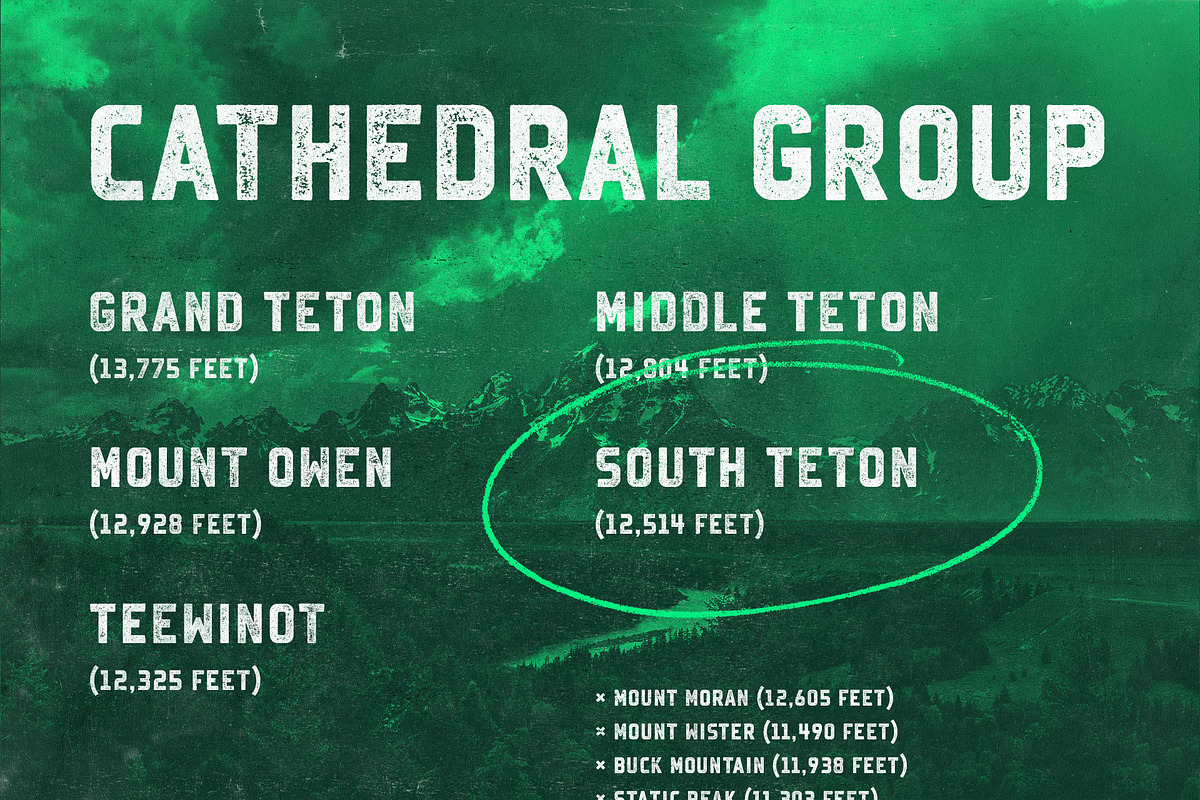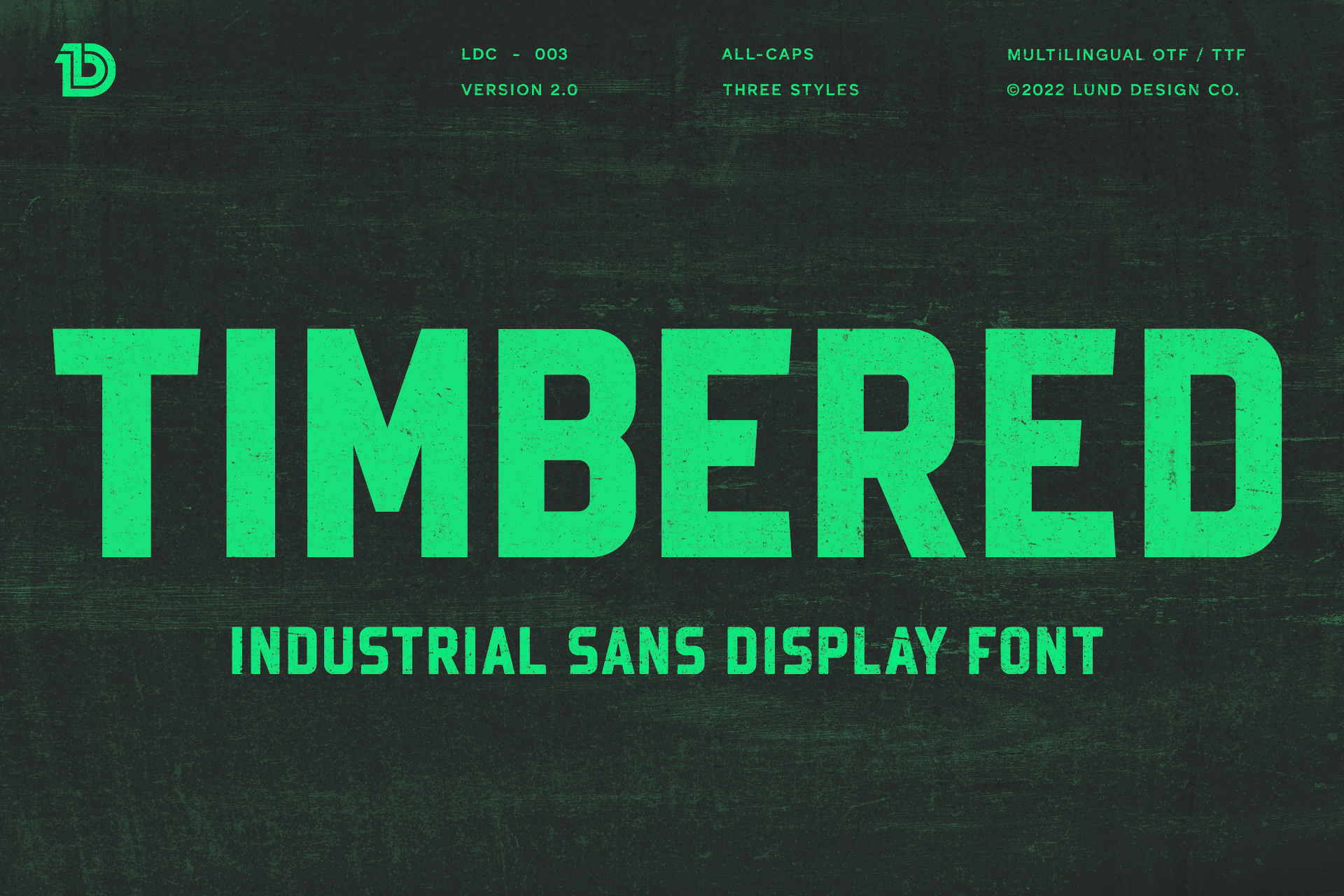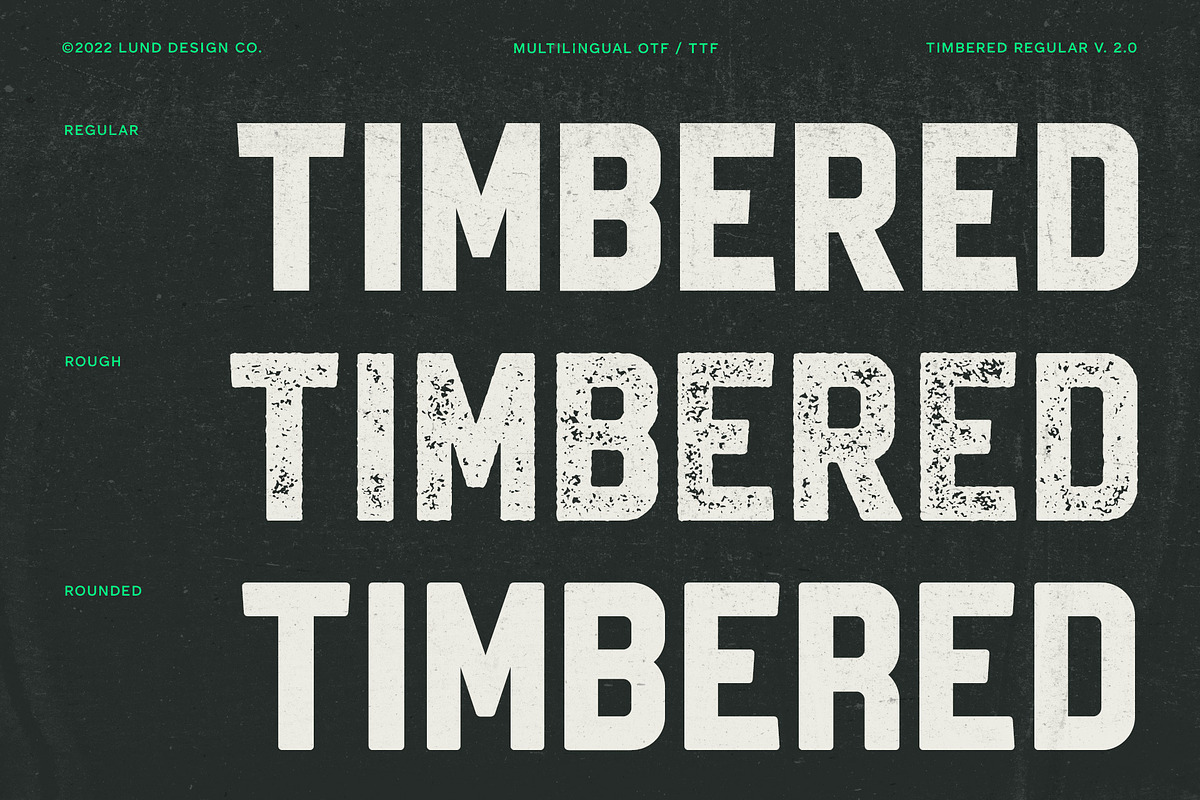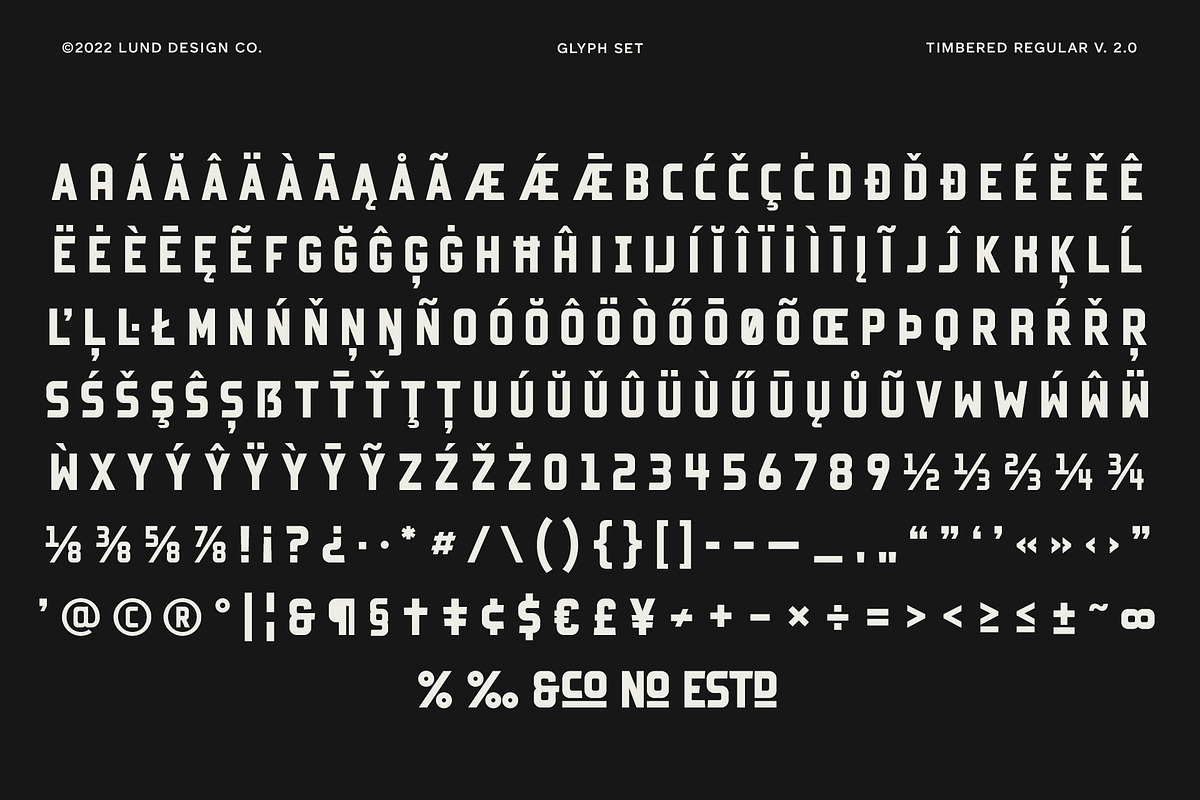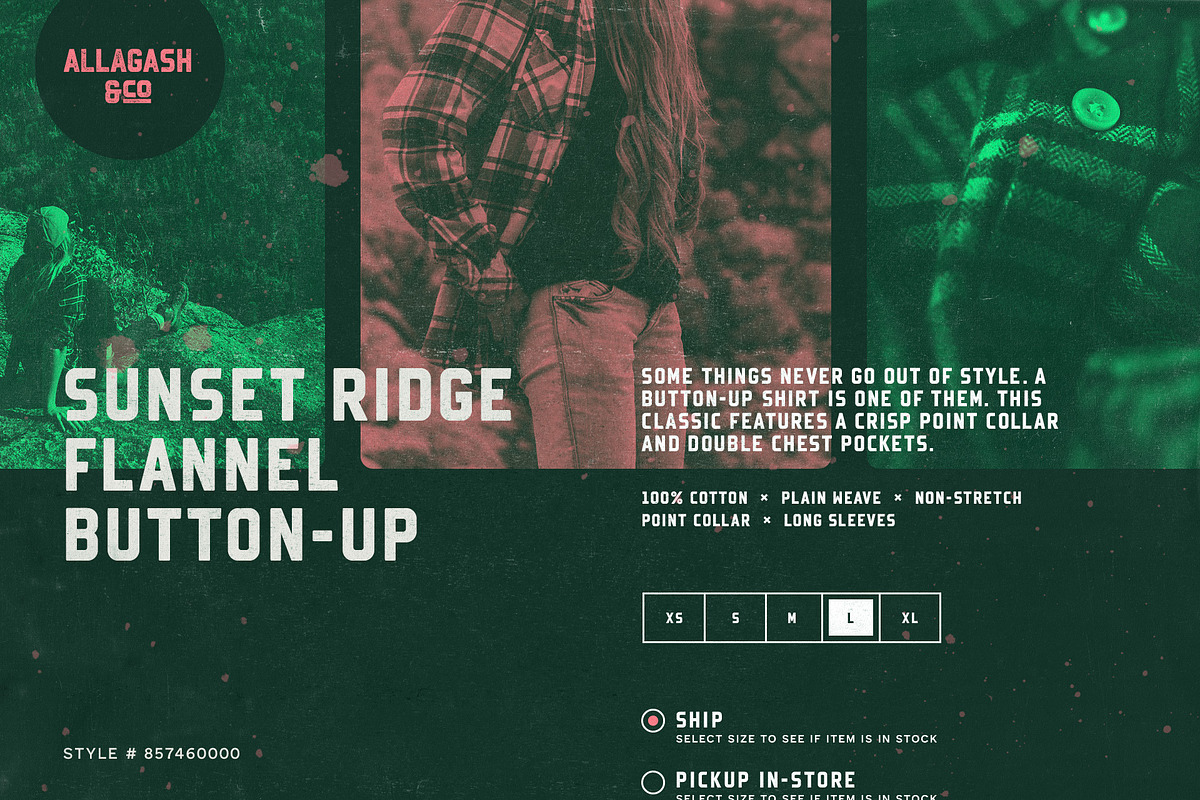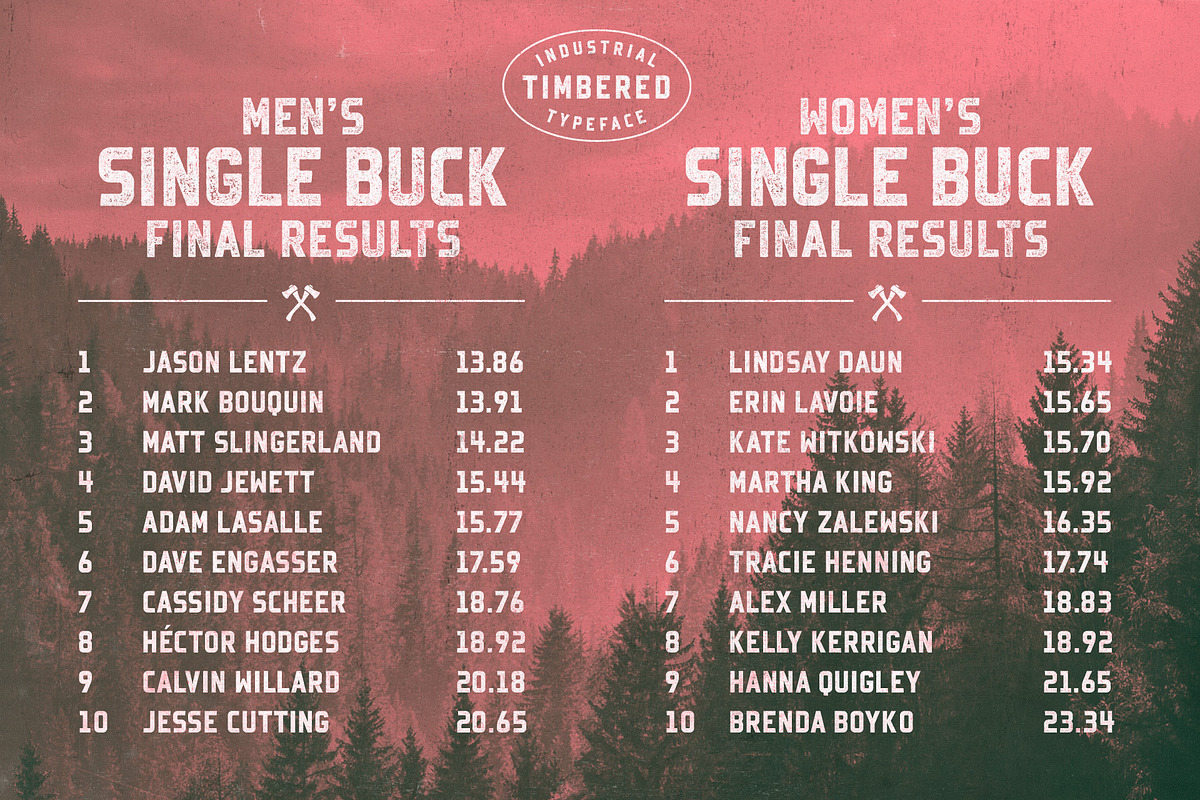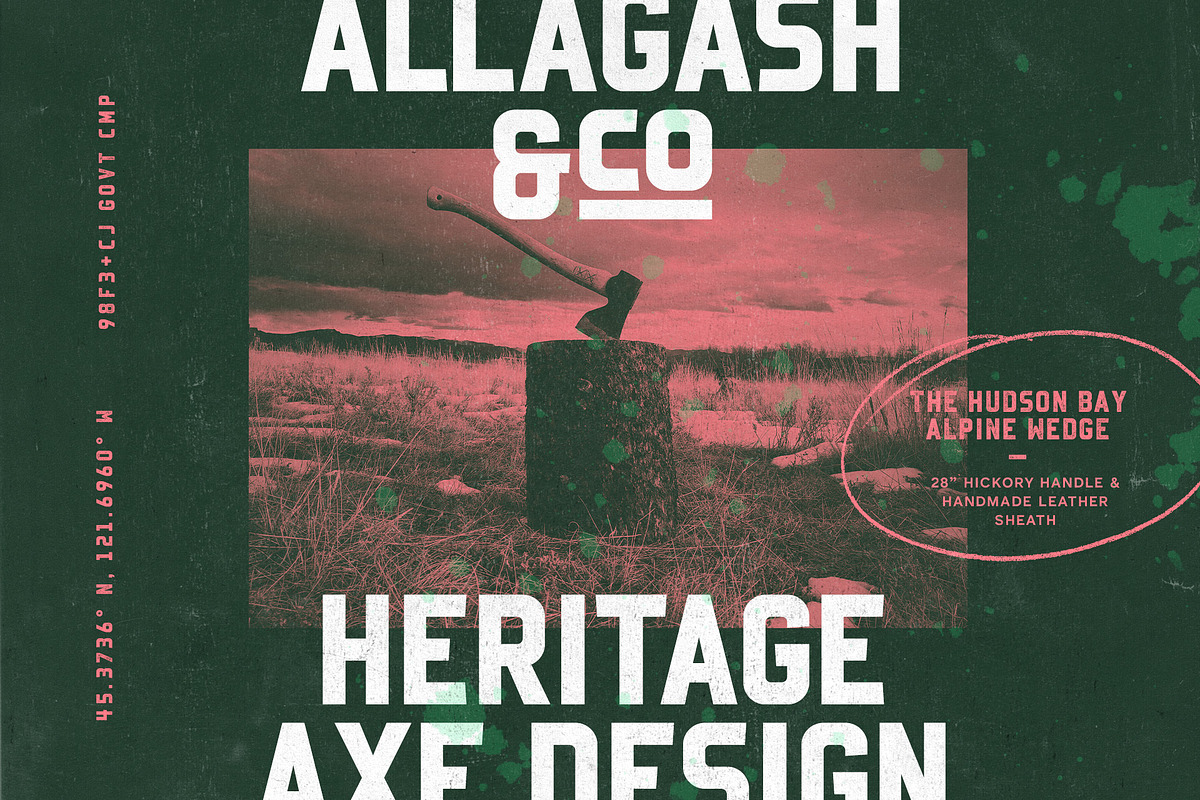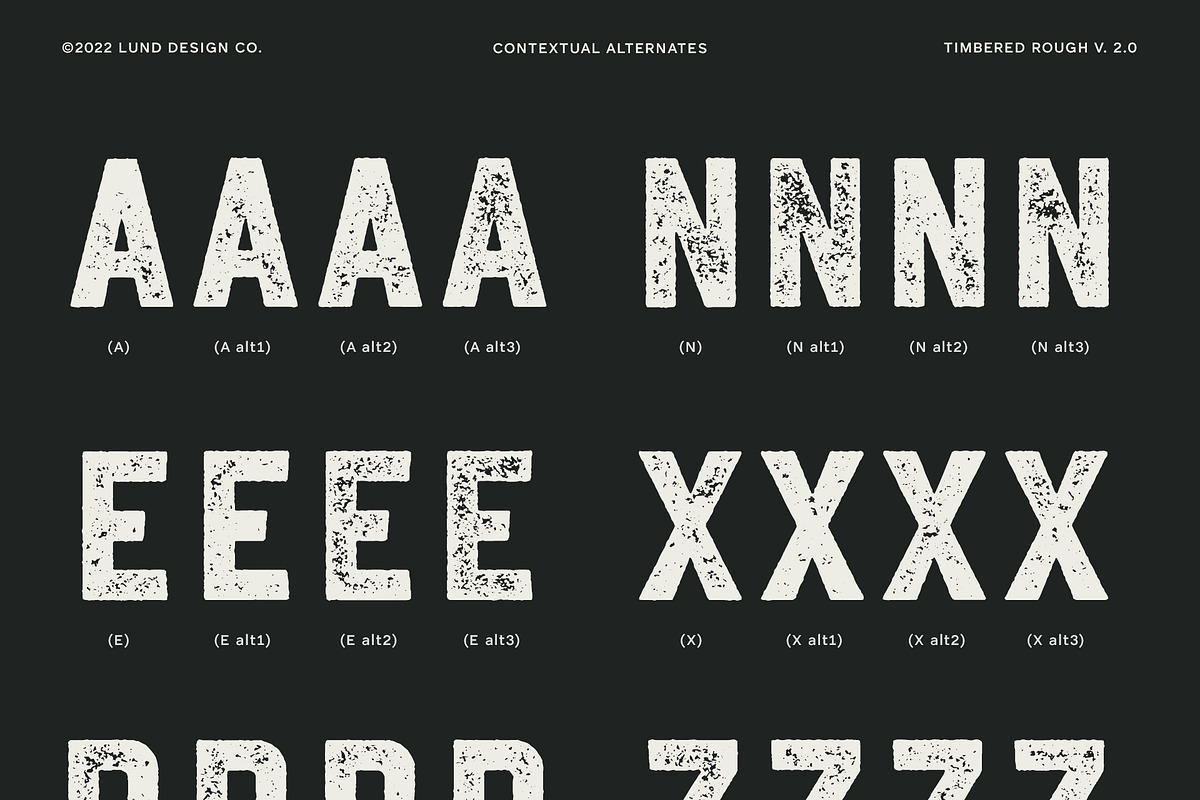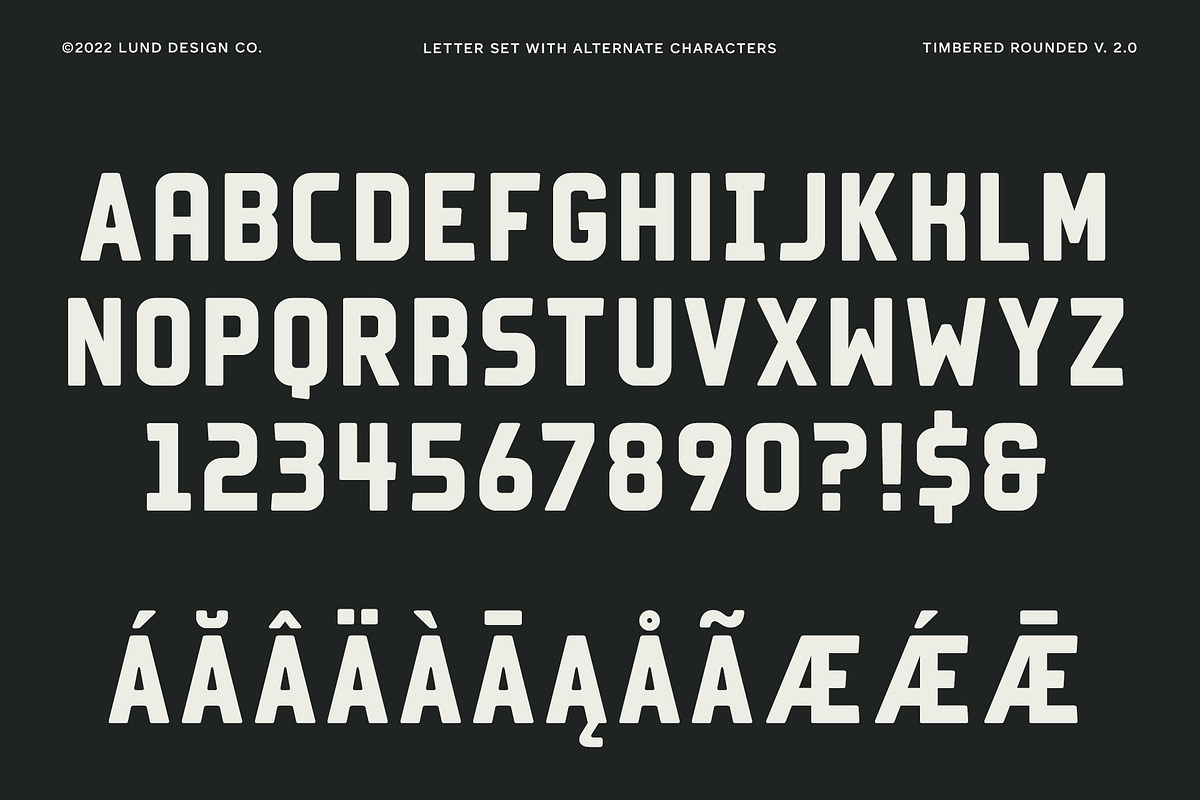
TIMBERED Condensed Display Font
Timbered is a condensed sans serif typeface, defined by sharp edges with a modern touch. It is strong, confident and sophisticated; giving it flexibility for a broad range of uses.
- 3 styles (Regular, Rounded & Rough)
- Alternate characters
- Accents & multilingual characters.
- Contextual alternates for rough distress
With a sense of strength and toughness as well as optimal readability, this hardworking sans serif is great for display use, branding, logos, posters, packaging, magazines, films and more.